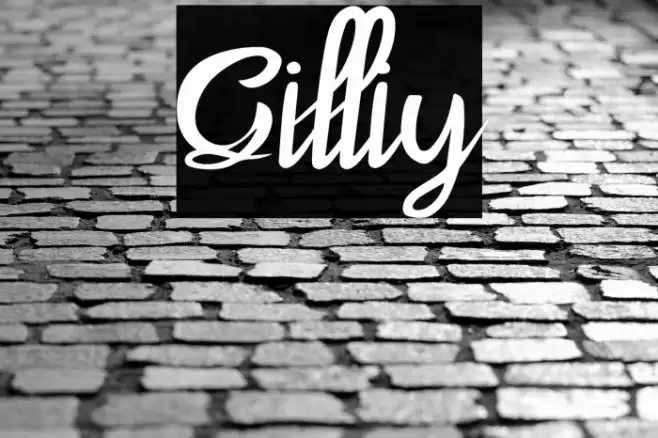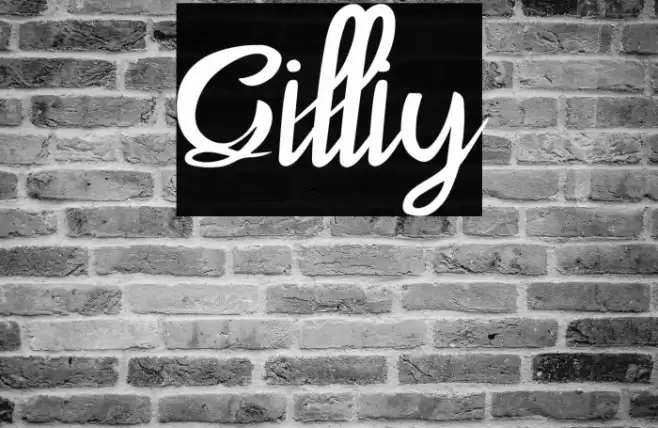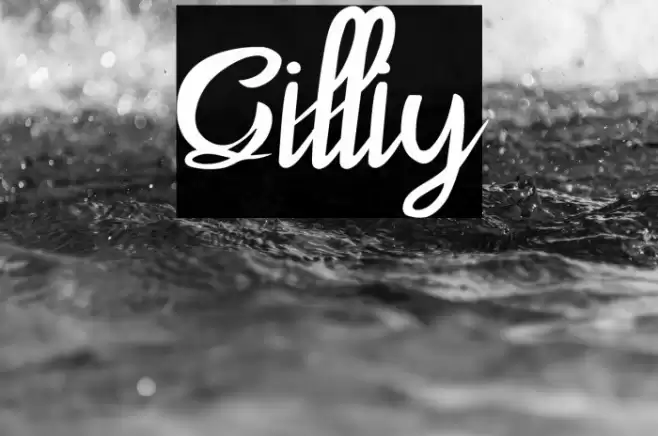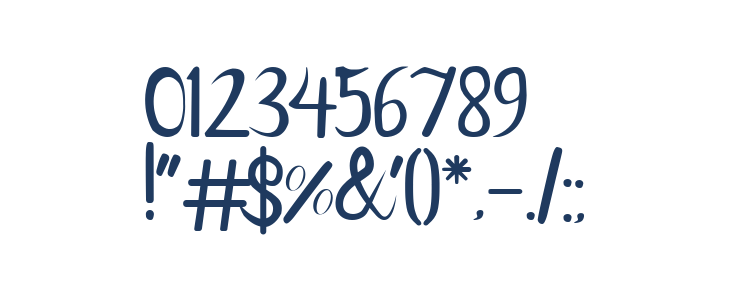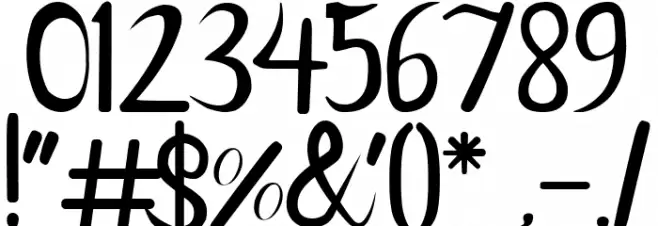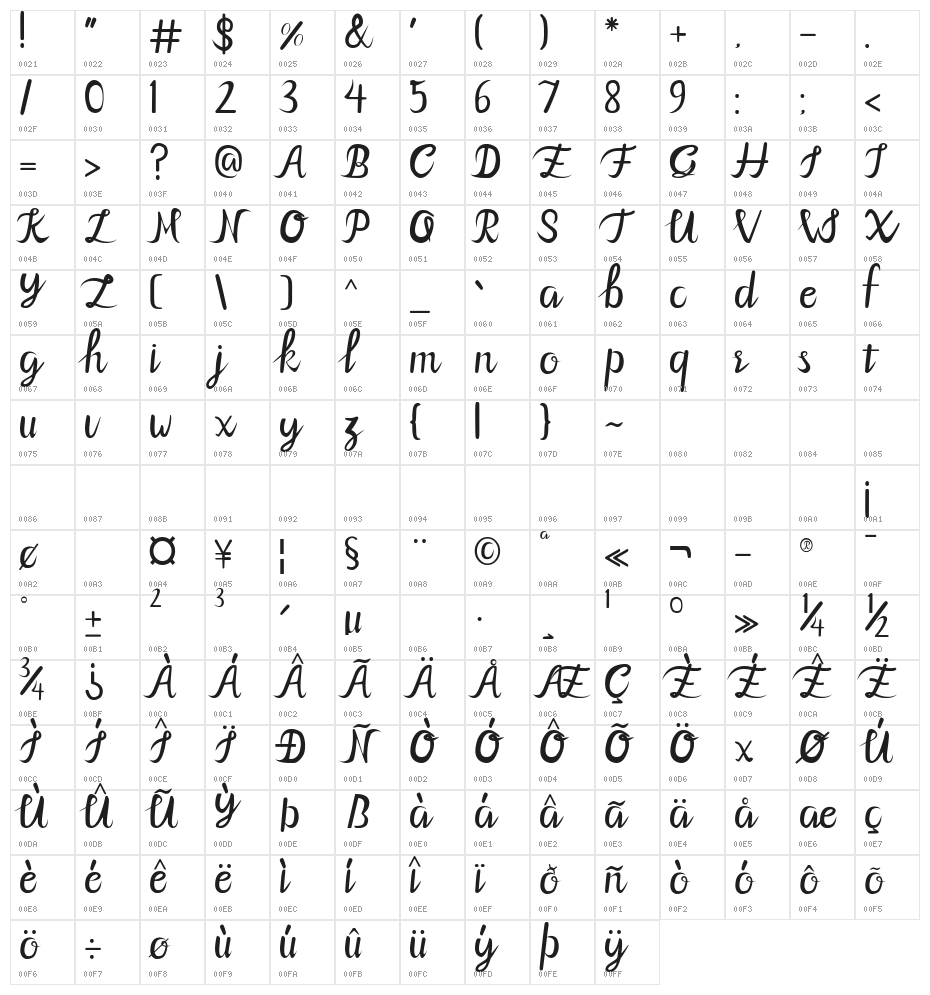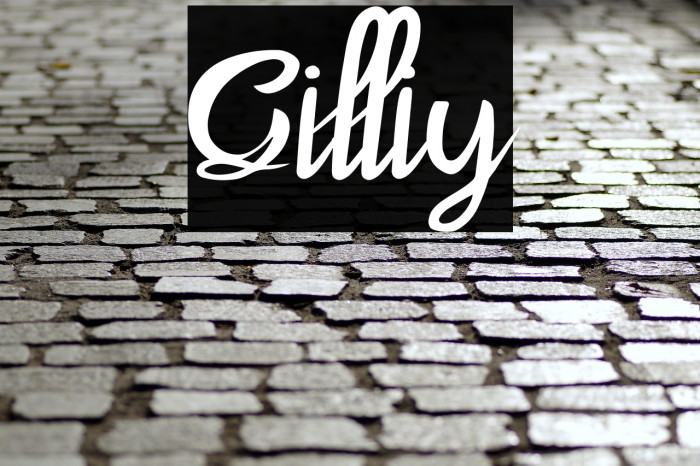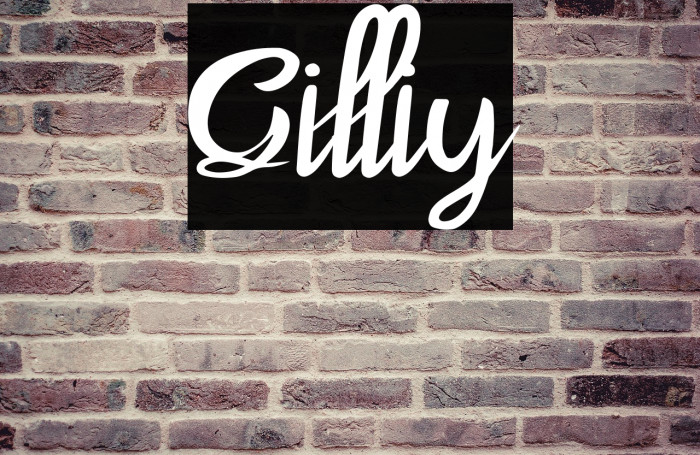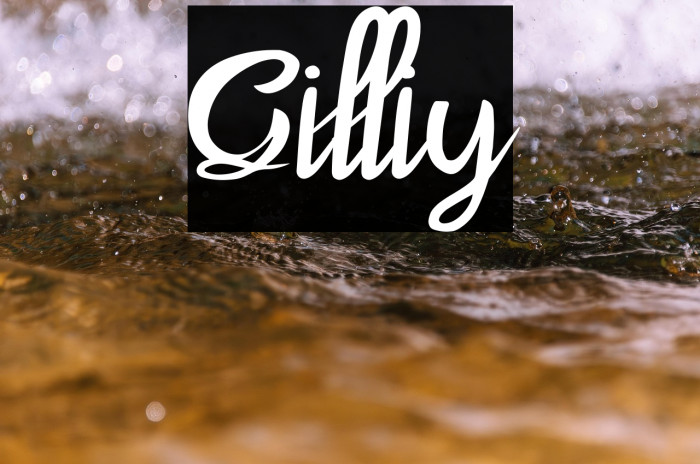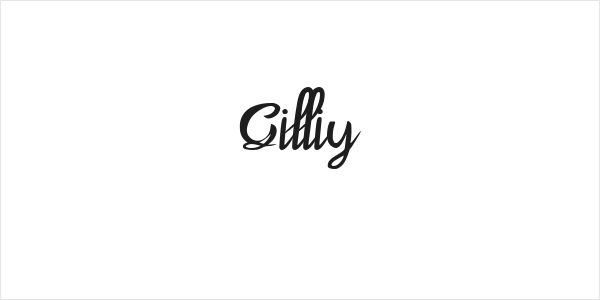
Gilliy Font
Gilliy Description
This font features a lively and expressive script style, characterized by its flowing, cursive letterforms. The uppercase letters exhibit elegant loops and swirls, while the lowercase letters maintain a consistent rhythm with smooth connections. The numerals are dynamic, complementing the overall energetic feel. Special characters are crafted with the same attention to detail, adding to the font's versatility. The strokes vary in thickness, providing a medium contrast that enhances readability while maintaining a decorative flair. This font is ideal for projects that require a personal touch, such as invitations, greeting cards, or branding materials.
A lively and expressive script font with flowing, cursive letterforms and medium contrast from Regular fonts.
- Proposed Projects: Ideal for invitations, greeting cards, branding materials, and any project needing a personal touch.
- Use Case: Headlines, Logos, Invitations